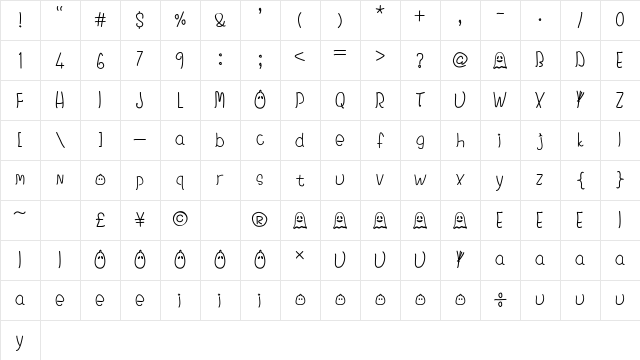
SDBoo Regular
Foundry: Sudezine
Designer: Sudezine
Design Context for SDBoo
SDBoo is a composed and adaptable typeface that performs quietly and consistently across a wide range of design contexts.